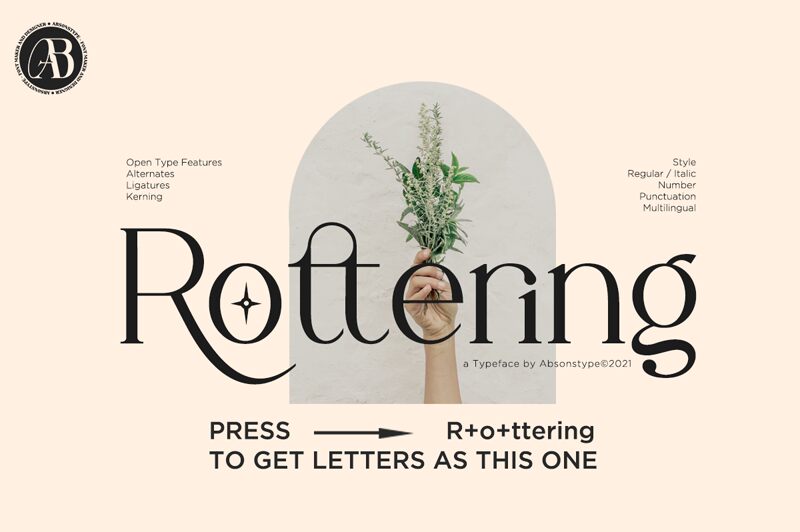
Rottering, a captivating serif font crafted by Absonstype Studio, exudes an air of timeless elegance. Its refined, yet striking letterforms boast a harmonious blend of classical influences and modern sensibilities. The delicate serifs and subtle contrast between thick and thin strokes create a sense of refined sophistication, while the overall structure lends itself to impactful typographic compositions. Rottering's distinctive personality effortlessly evokes a sense of refined sophistication, making it an ideal choice for editorial design, high-end branding, and prestigious publications.
This versatile font shines in a variety of applications, from elegant wedding invitations to captivating book covers. Its timeless charm and legibility make Rottering a versatile option for both display and body text, allowing designers to elevate their projects with a touch of refined elegance.
Use plus (+) after a word to make a special character.
Example: R+o+ttering